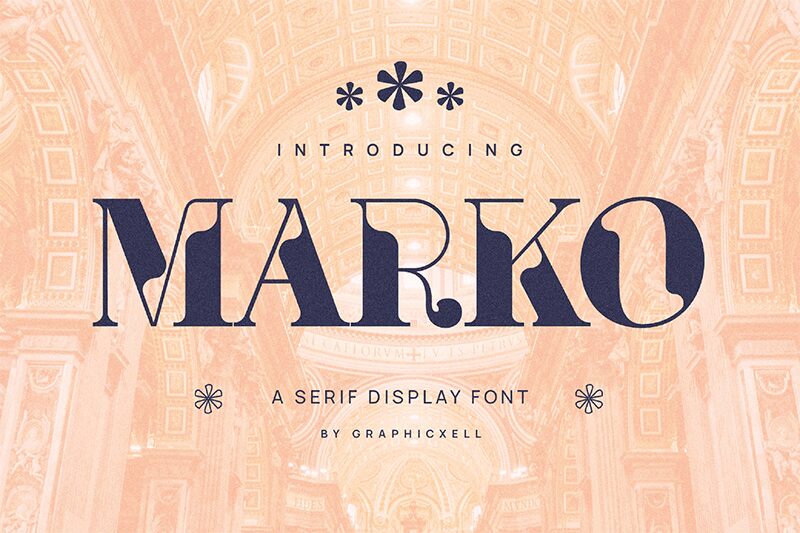
Marko font by Graphicxell is an elegant, refined, and decorative serif font designed in a display style for sophisticated situations. This retro font is vintage-inspired with a classical influence and a contemporary application possible. This is visible in its luxurious and stylish appearance that immediately stands out.
Marko font is suitable for branding, visual identity, logo design, and business card design. It can also be used efficiently in print and digital media as well as advertising posters, flyers, and social media posts. It is also suitable for educational purposes, signage, cover design, magazine layouts, and clothing items.